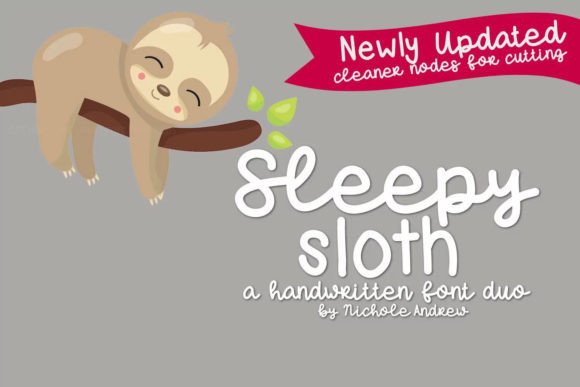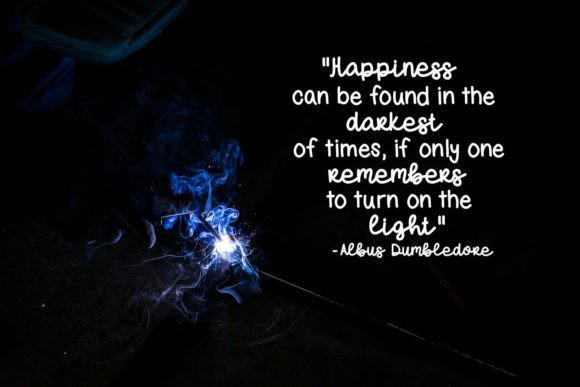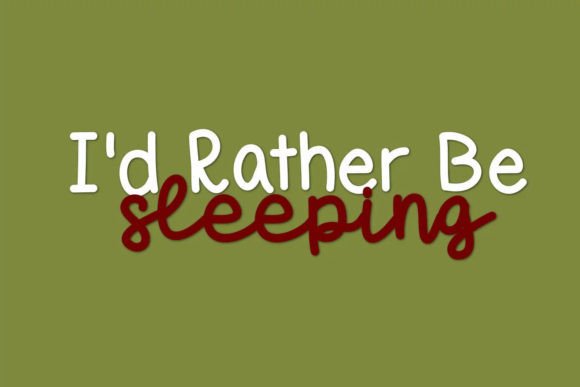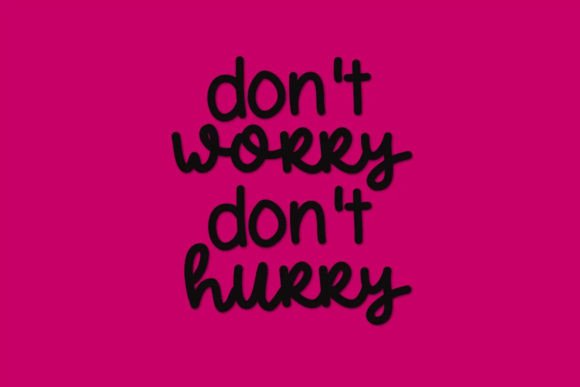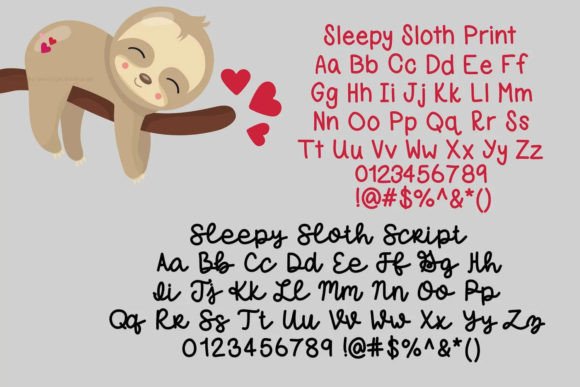
Sleepy Sloth Duo Font
About Sleepy Sloth Duo Font
Introducing Sleepy Sloth, a delightful handwritten font duo that adds a touch of whimsy and character to your creative projects. This charming duo includes both a print and a script font, providing the perfect combination for a wide range of applications. Sleepy Sloth is not just a font; it’s a versatile tool that will make your designs pop on items like cards, bags, water bottles, notebooks, stickers, and more.
Let’s delve into the unique features of Sleepy Sloth and explore how it can elevate your design projects. The print font, with its carefully crafted strokes and clarity, ensures that your text is not only stylish but also easily readable. This makes it an excellent choice for a variety of applications, from creating personalized cards to designing sleek and trendy bags.
Complementing the print font is the script font, which adds a playful and handcrafted feel to your designs. The flowing and expressive nature of the script font injects a sense of personality into your projects, making them truly stand out. Imagine the joy of using Sleepy Sloth on water bottles, where the script font can create dynamic and eye-catching labels that grab attention.
One of Sleepy Sloth’s strengths is its adaptability. The font duo seamlessly transitions between different mediums, making it suitable for diverse projects. Whether you’re working on a DIY notebook design or adding a touch of charm to your sticker collection, Sleepy Sloth is the go-to choice for a cohesive and stylish look.
The beauty of Sleepy Sloth lies in its ability to bring a handcrafted aesthetic to the digital world. The fonts retain the warmth and authenticity of handwritten text, providing a unique visual appeal that resonates with a wide audience. As you incorporate Sleepy Sloth into your projects, you’re not just adding a font; you’re infusing your work with a sense of creativity and individuality.
In conclusion, Sleepy Sloth is more than just a font duo; it’s a creative companion ready to bring your ideas to life. With its print and script fonts working in harmony, Sleepy Sloth adds a touch of magic to your designs, making them truly memorable. Download Sleepy Sloth today and let your creativity flourish!